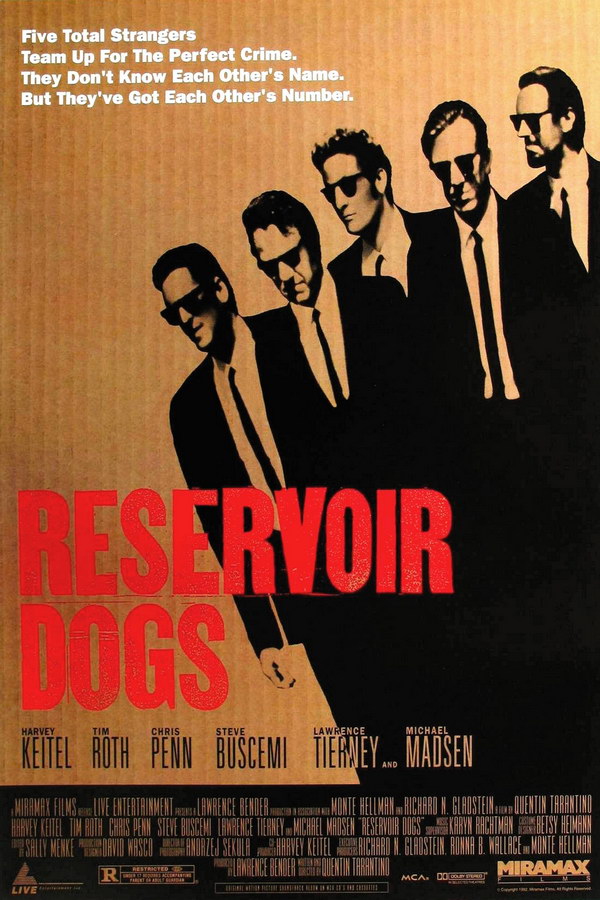
Reservoir Dogs Font
Fonts in UseReservoir Dongs is a 1992 crime film directed by Quentin Tarantino, known for its nonlinear narrative and stylish dialogue, as it follows a group of criminals unraveling after a heist gone wrong.